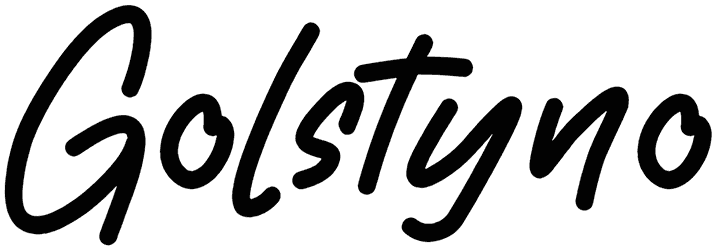
Golstyno Font
Ever been stuck trying to find a source of playfulness for your lettering? That’s the sort of thing that won’t happen when you let Golstyno into your text and embrace its warm approach in your projects.